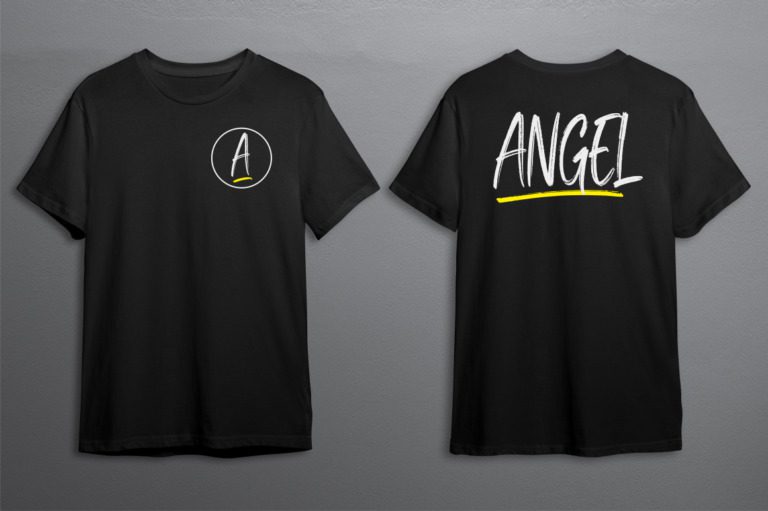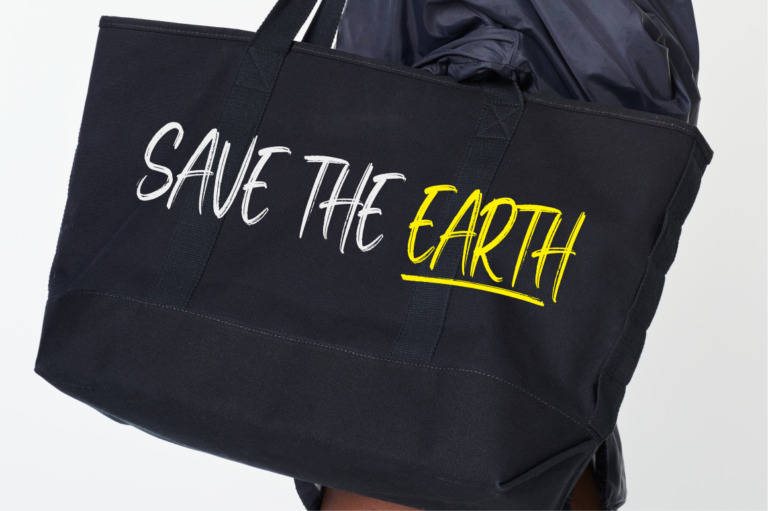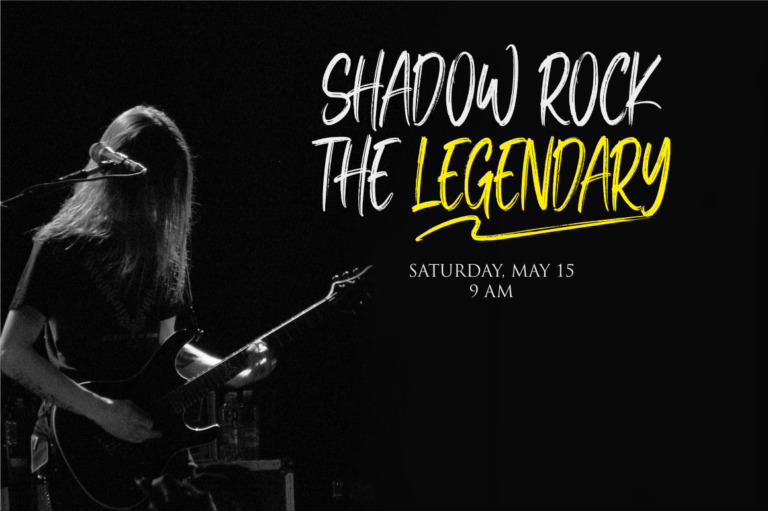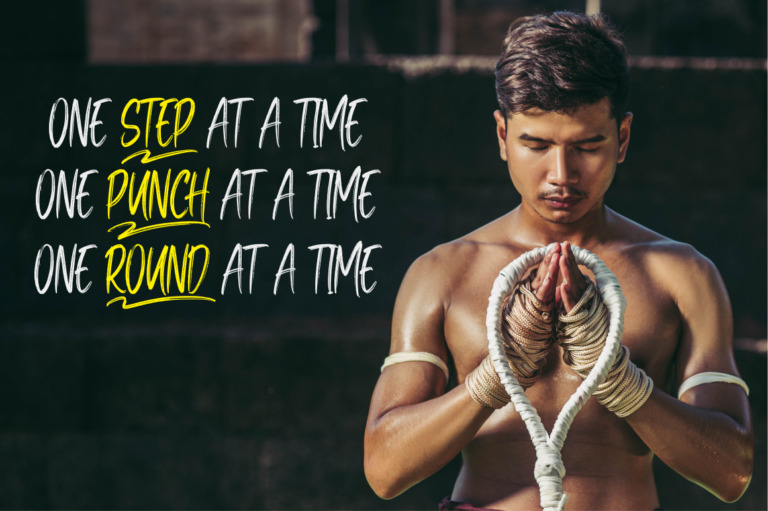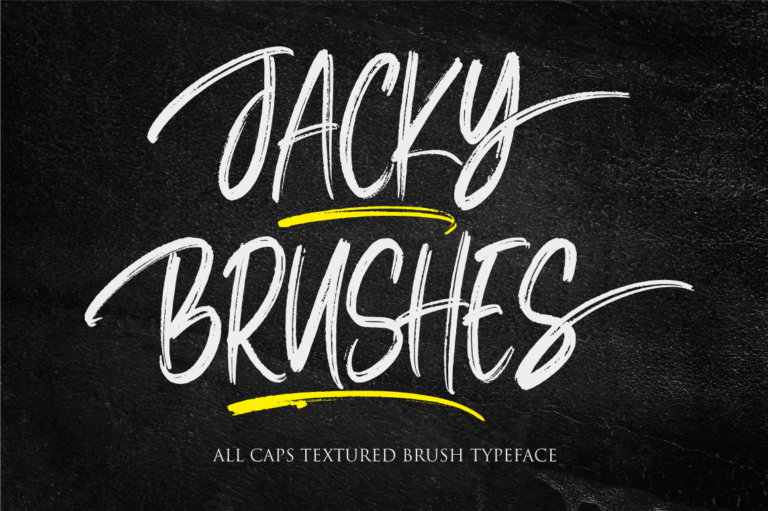
Jacky Brushes Font
Jacky Brushes is a bold and expressive brush script font. Its textured strokes and dynamic swashes add a touch of artistic flair to any design. Perfect for creating eye-catching headlines, logos, and invitations, Jacky Brushes is a versatile font that can be used for a variety of creative projects.